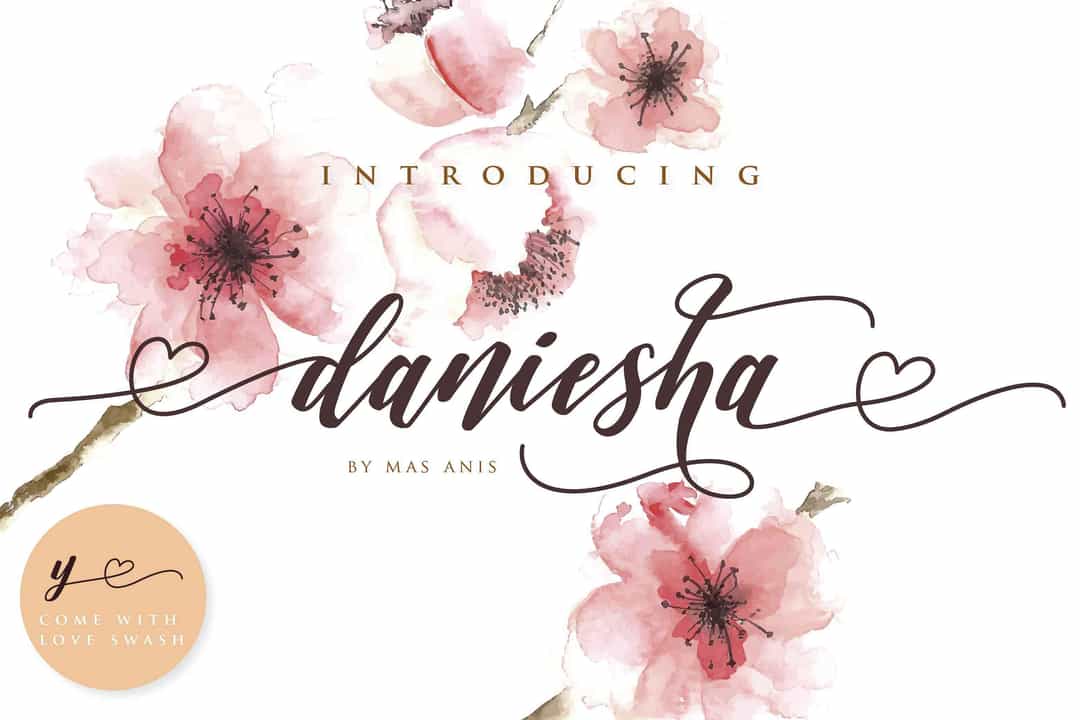
Discover Daniesha Script Font, part of the Calligraphy collection—a versatile and unique font perfect for adding a personal touch to your projects. Download it for free and enjoy crafting designs with style, from invitations to social media posts. This font is available exclusively for personal use, giving you the freedom to create without limits. Unlock your creativity with Daniesha Script Font today!
Daniesha is a new fresh, unique & modern script with a handmade calligraphy style and decorative characters. It can be categorized as a classic font with some modern features. Daniesha Font is perfect for a wedding, quote, greeting cards, bussiness cards, event, invitations, escort cards, table numbers, header menus, display, logos, blog sliders, branding materials, custom addresses, stamps, packings, posters, and more!